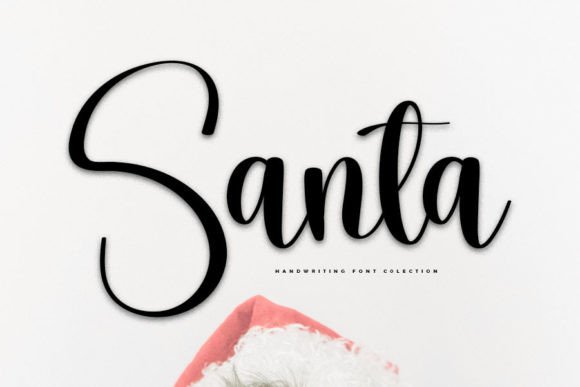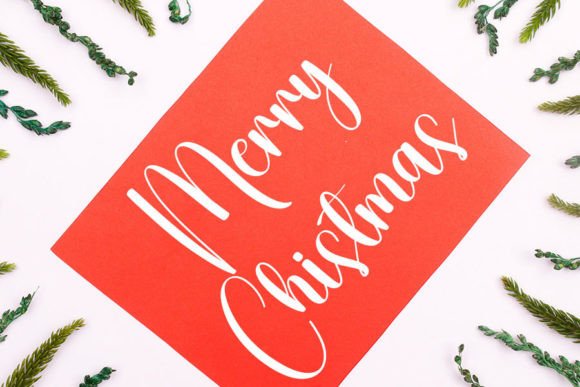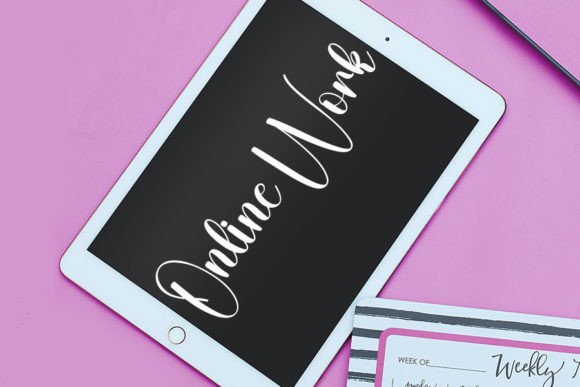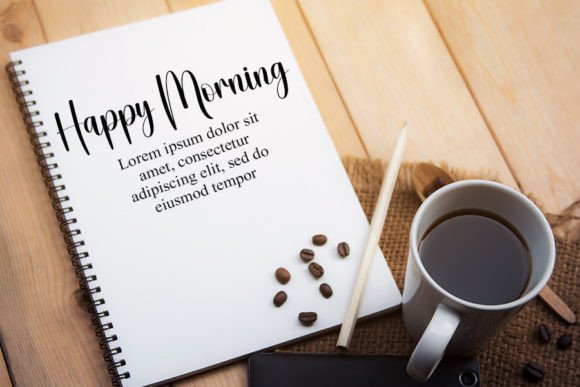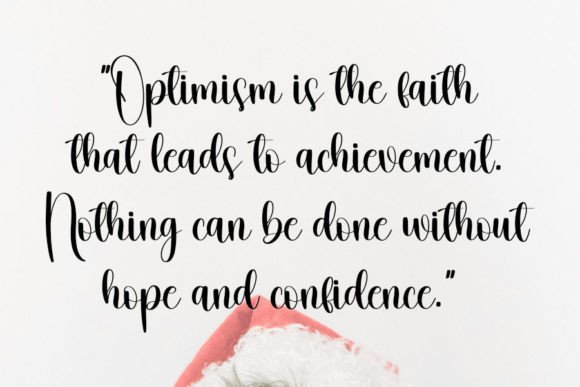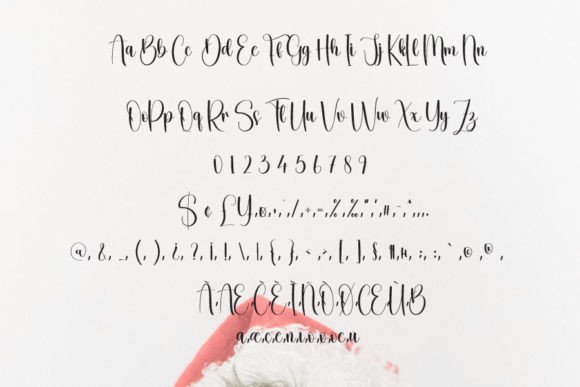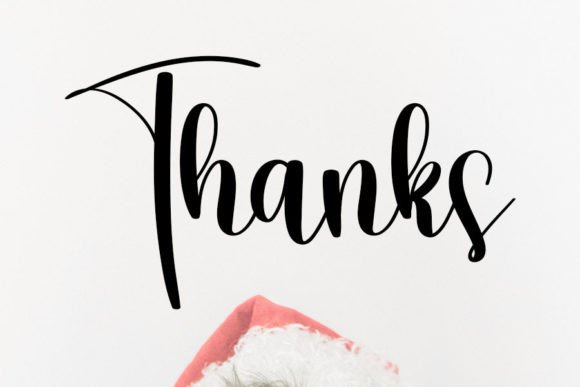
Santa Font
About Santa Font
Santa font is a simple and friendly handwritten typeface designed to bring warmth and charm to your creative projects. When you download Santa font, you gain access to a versatile and inviting style suitable for a wide range of uses. Whether you’re working on crafts, digital designs, presentations, or greeting cards, this font is poised to become your favorite go-to choice for any occasion.
Perfect for Crafting Projects
If you enjoy making handmade crafts, downloading Santa font will add a natural and personal touch to your creations. Its simple and approachable handwritten style makes it ideal for scrapbooking, DIY cards, and other artistic projects. Santa font brings a heartfelt feel that enhances the meaning behind every craft.
Enhance Your Digital Designs
Santafont is well-suited for digital design projects, offering a clean and friendly look that fits perfectly with social media posts, website headers, and professional presentations. By downloading Santafont, you can infuse your digital content with an engaging and approachable vibe that connects with your audience.
Ideal for Greeting Cards and Invitations
Sending heartfelt messages becomes easier with Santafont. Its handwritten charm makes it a fantastic choice for greeting cards, invitations, and stationery. When you download Santafont, you ensure that your messages feel genuine and personal, adding a special touch to every card and invite.